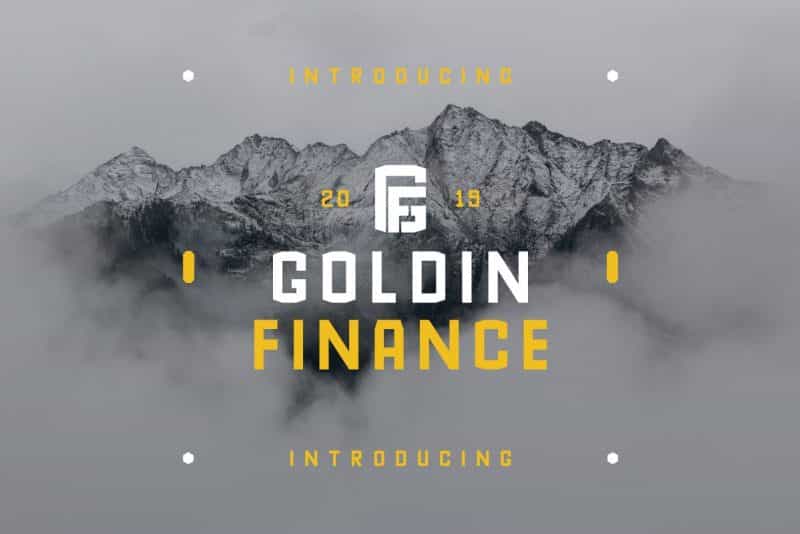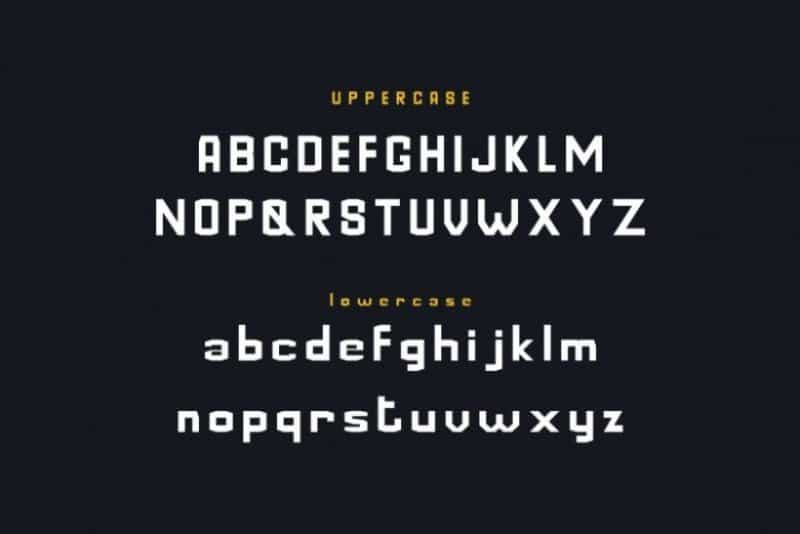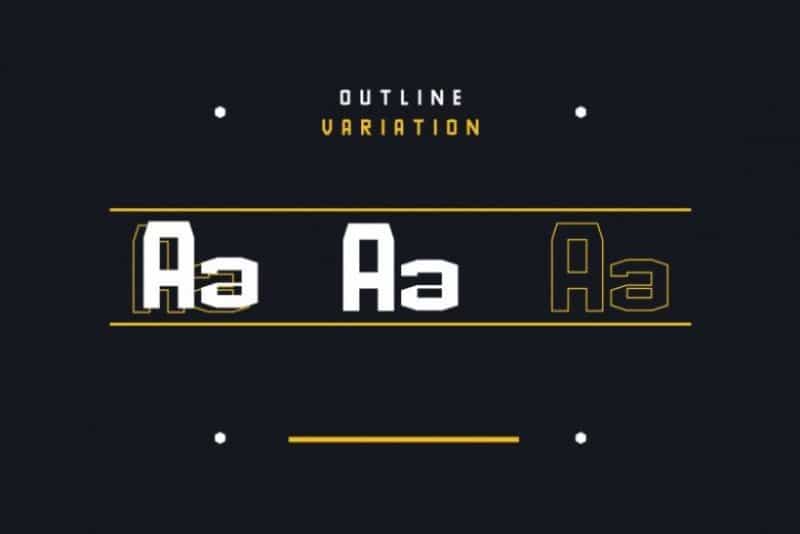
Introducing, GoldinFinance! A Geometric Casual Sans Serif. It is so not like anything you have experienced before. It is excellent fonts for lots of things. From printing : You can use the print medium like magazine, flyer, headline, brochure etc. or online marketing which may be quote, poster social media headline and cover etc. Or you can even go for branding that is logo and Bizcard etc whatever it is!